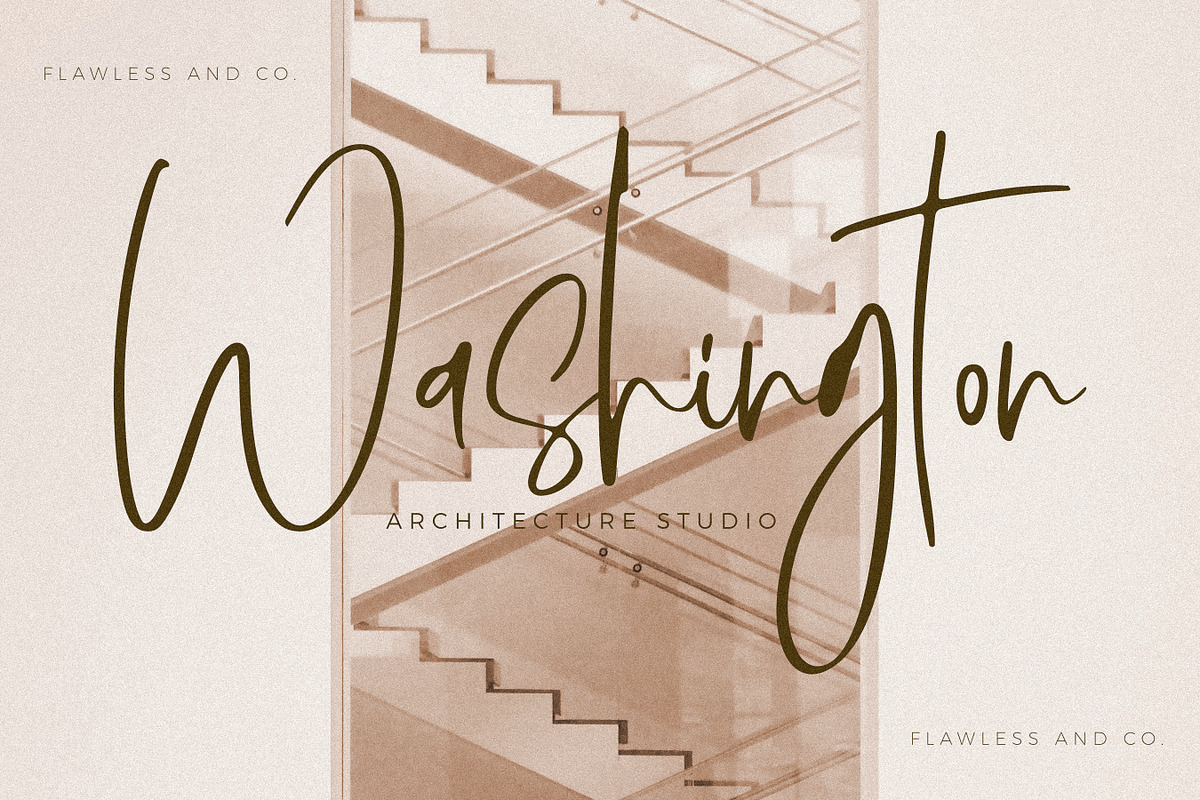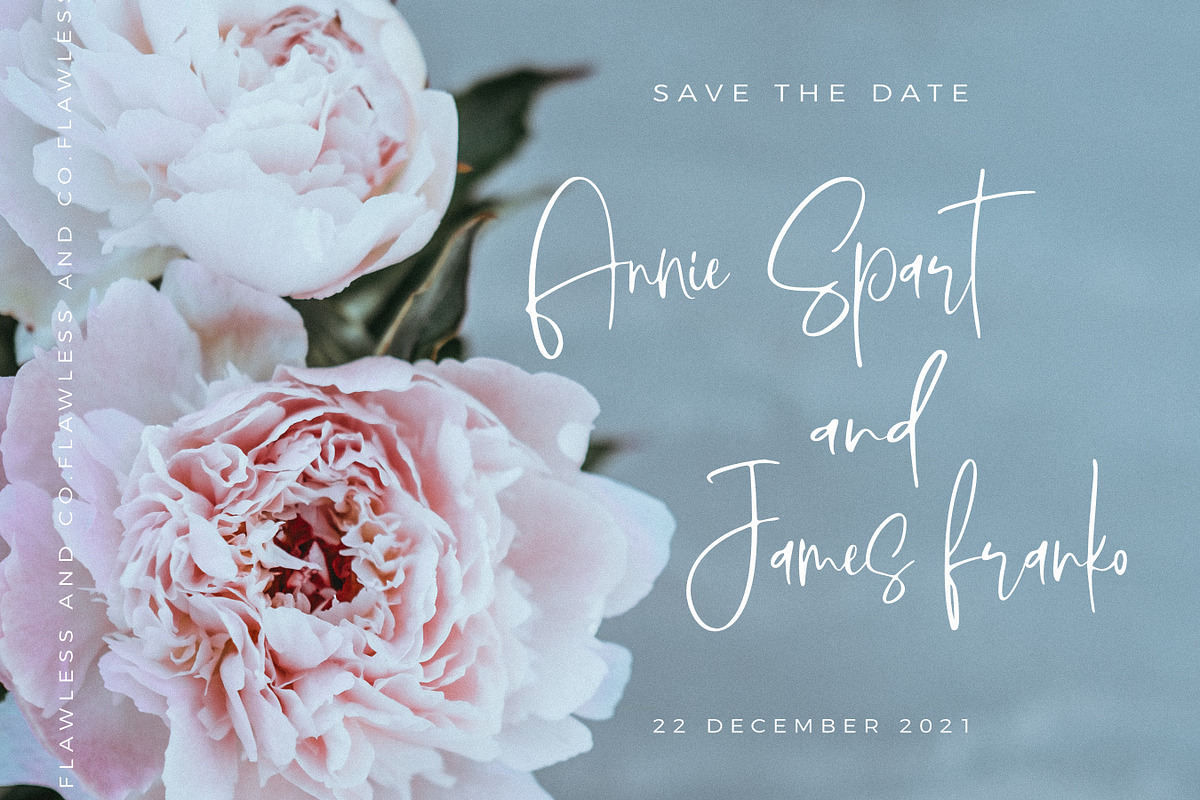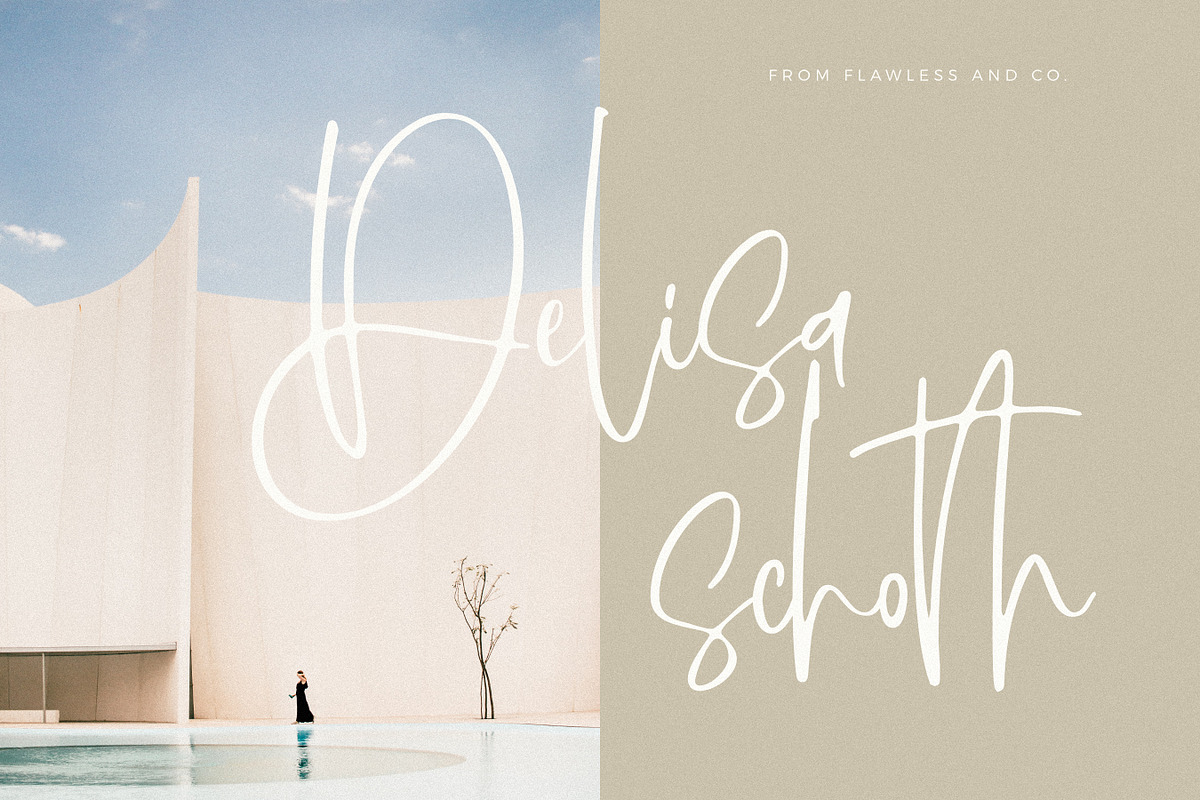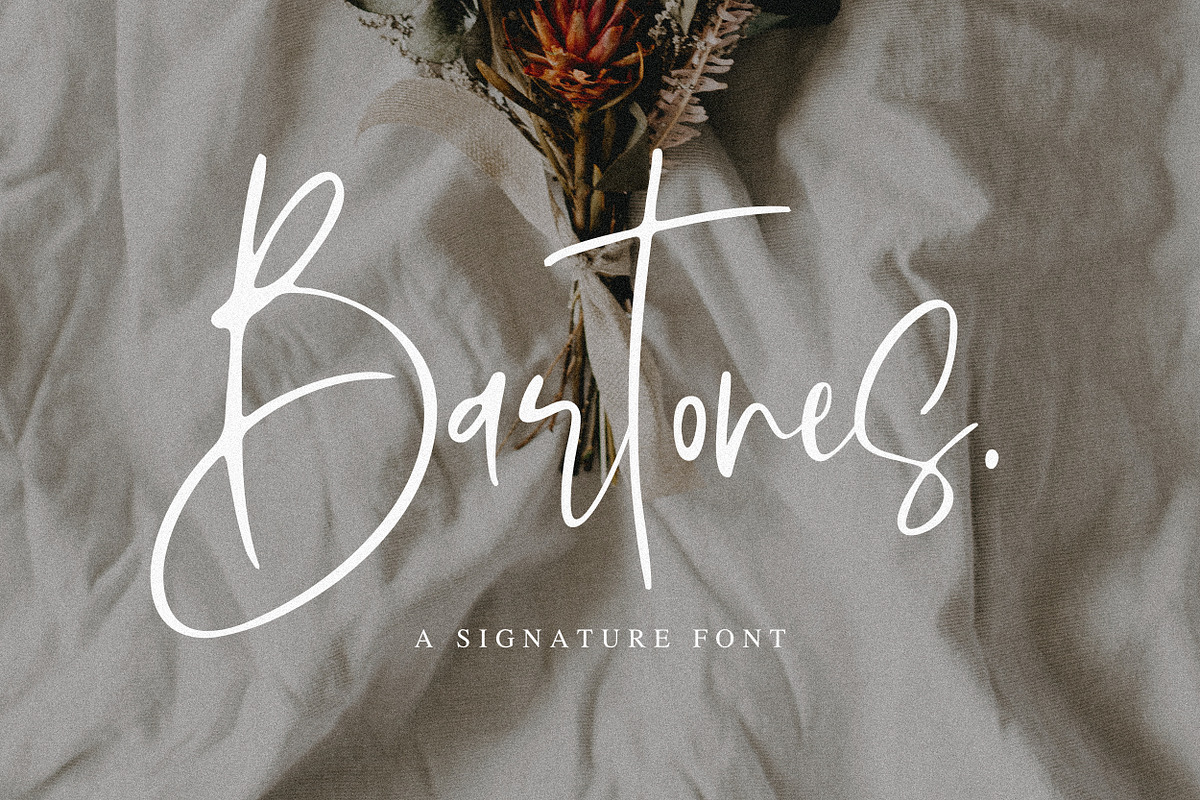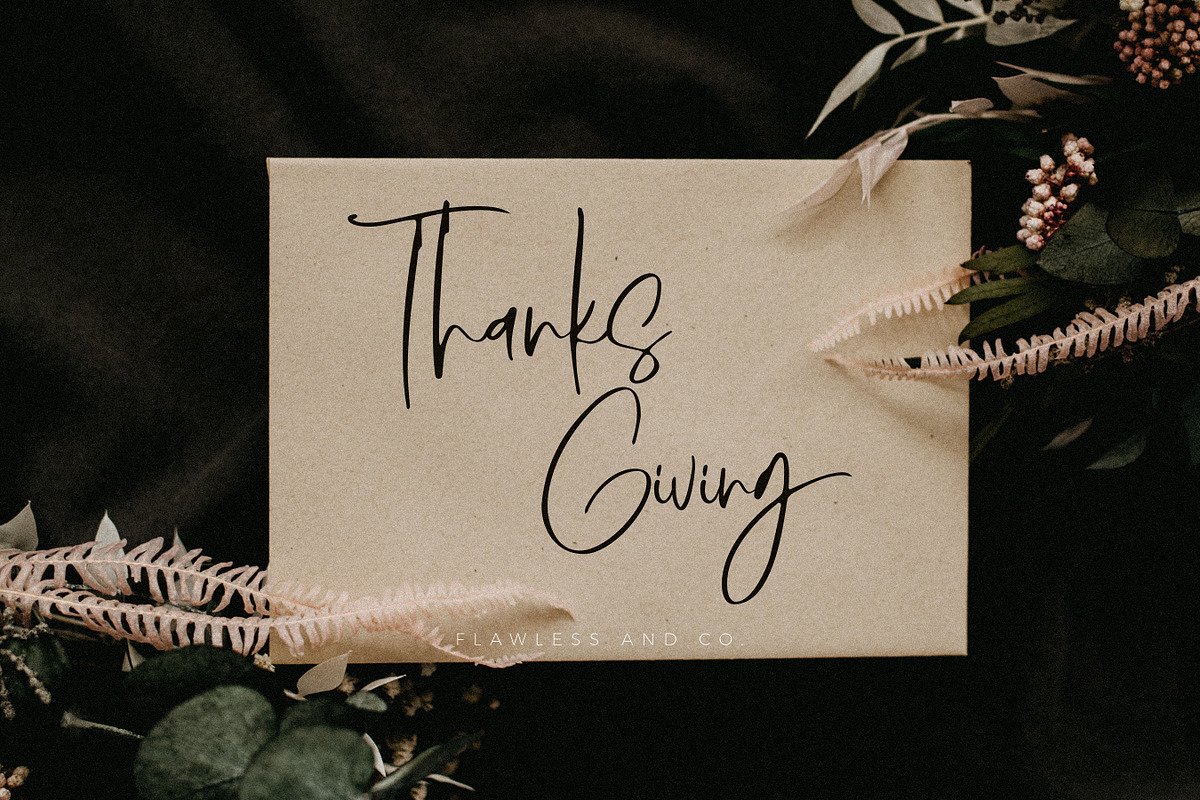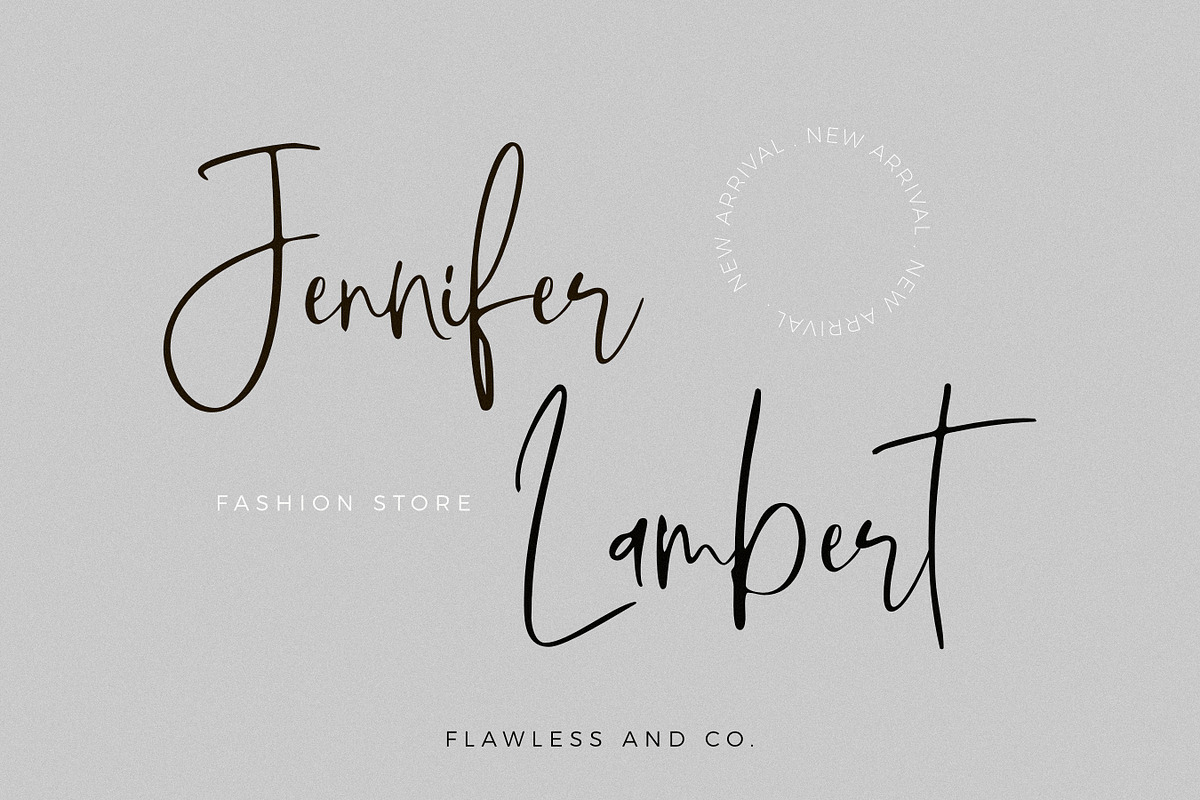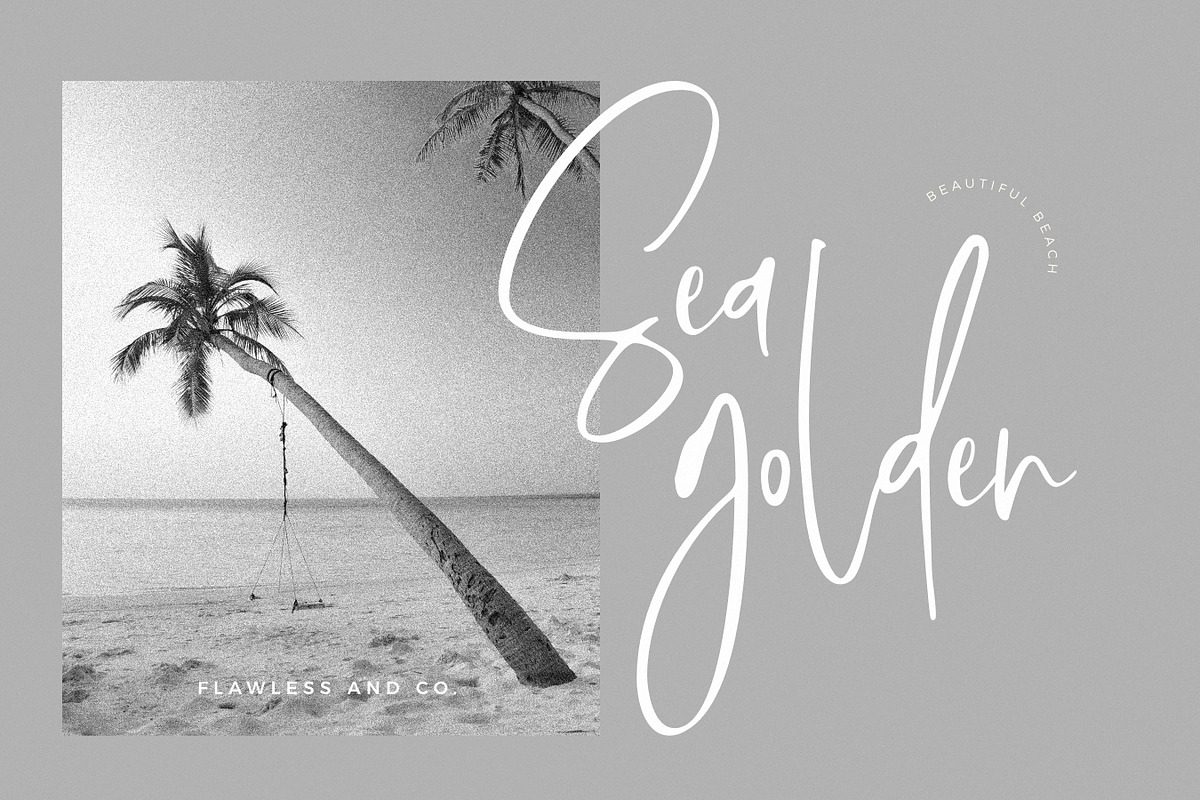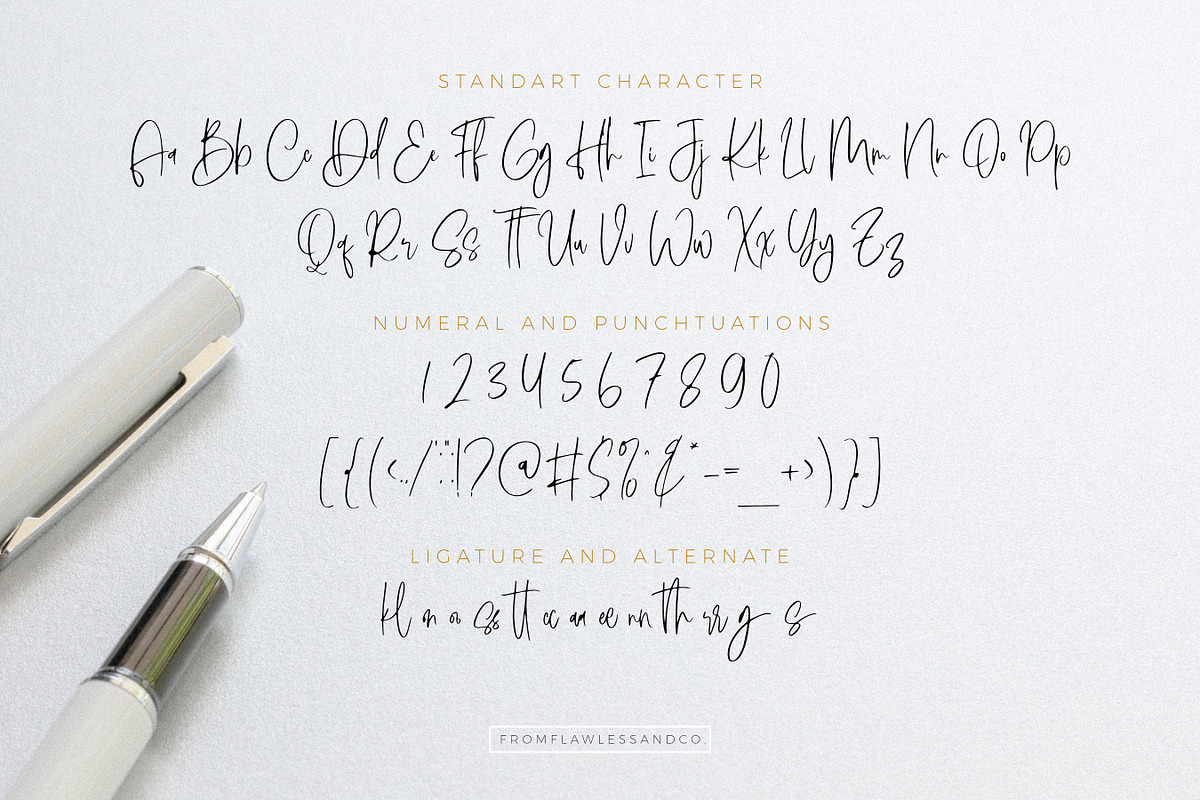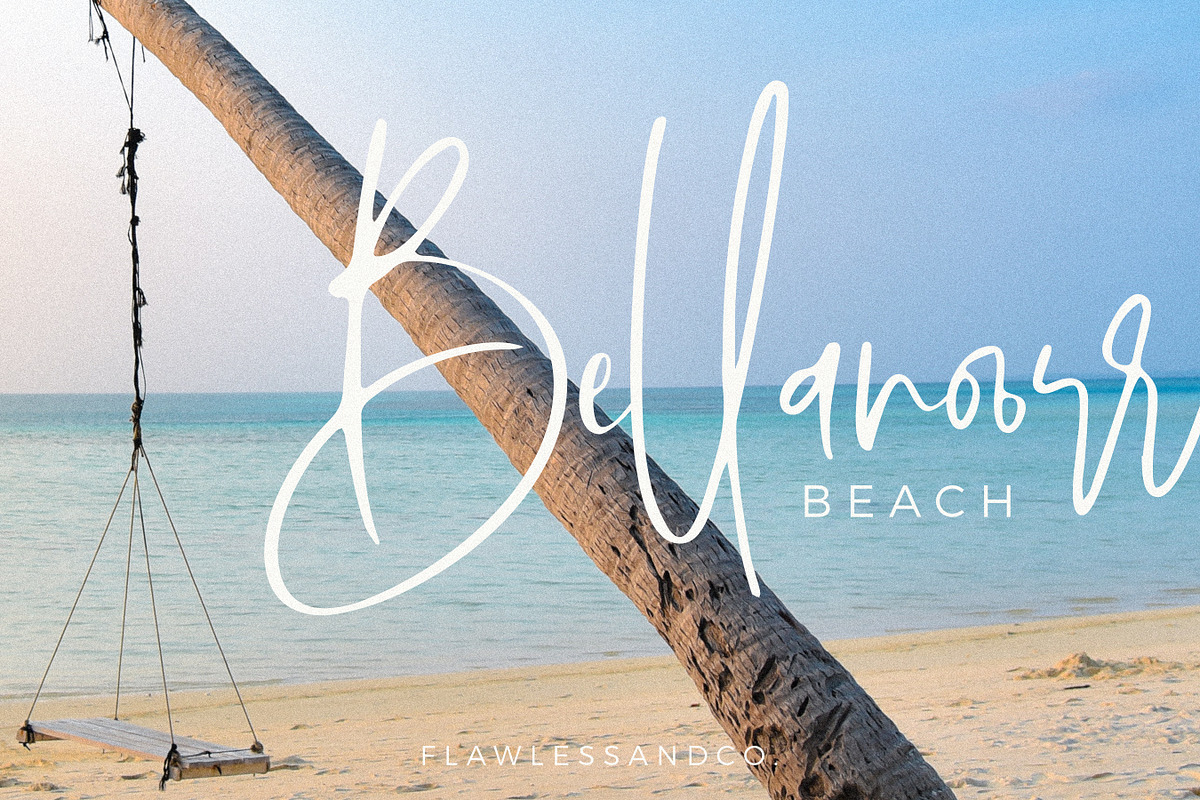
Bartones
Bartones Font is a handcrafted script, this style gives a feel of Girly, modern, Suitable for any graphic designs such as branding materials, t-shirt, print, business cards, logo, poster, t-shirt, photography, quotes .etc